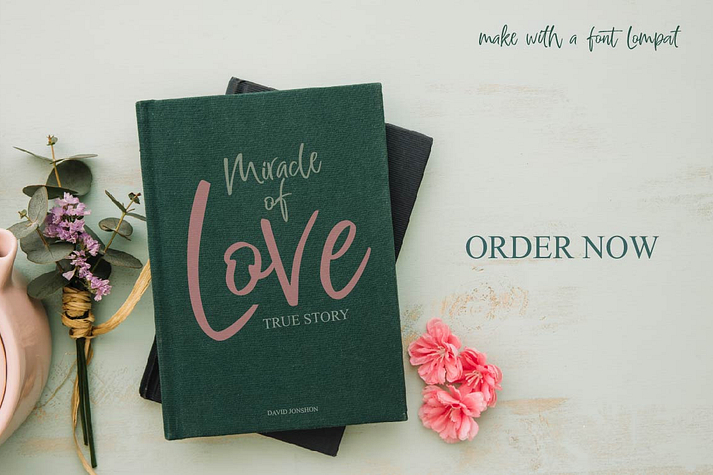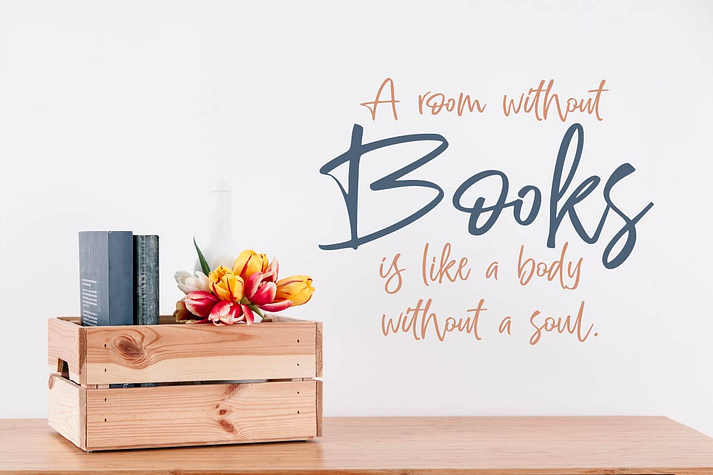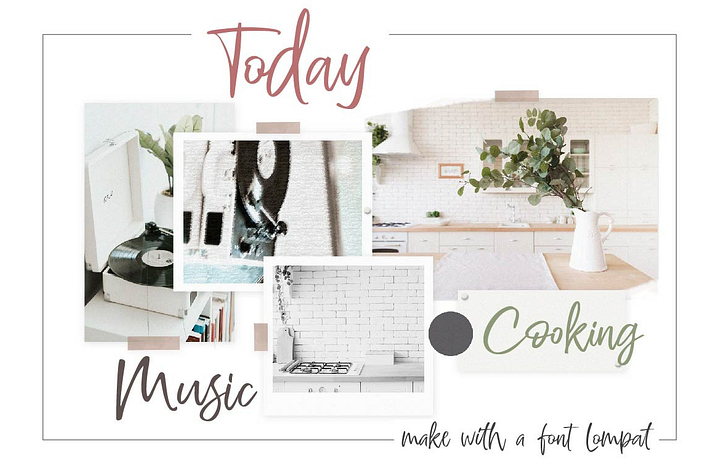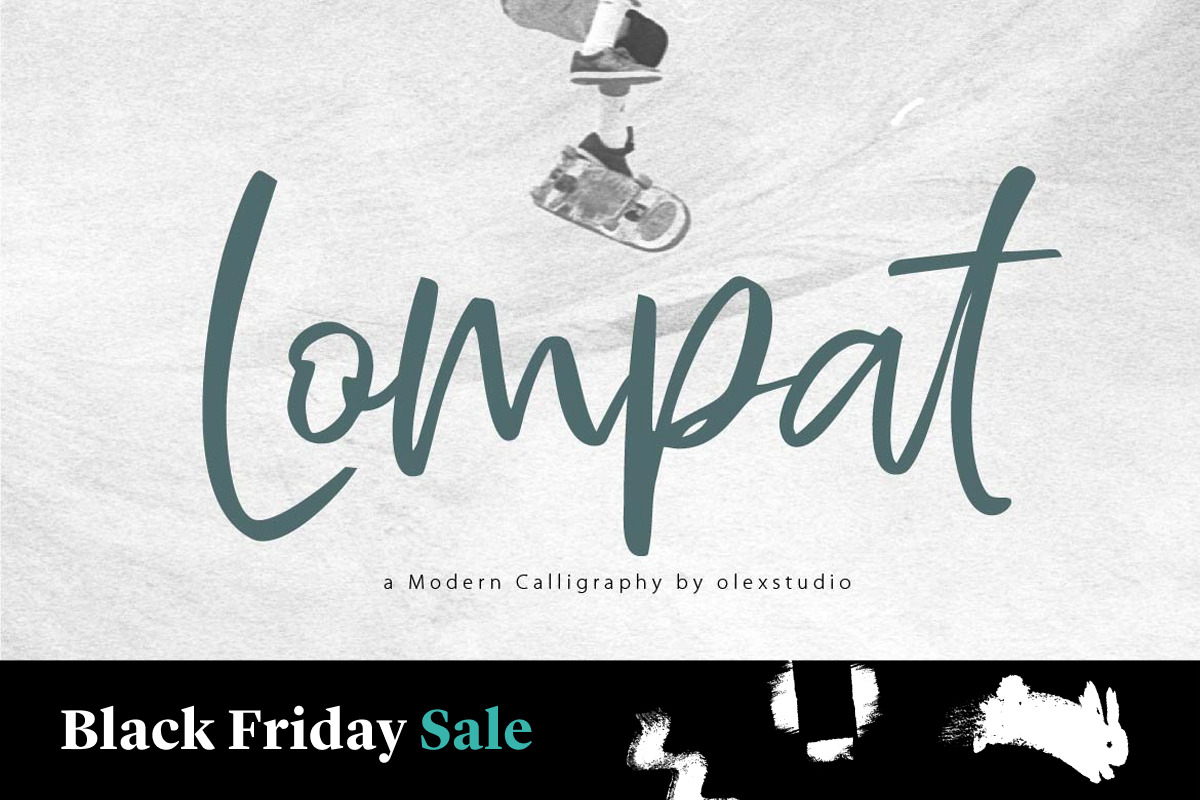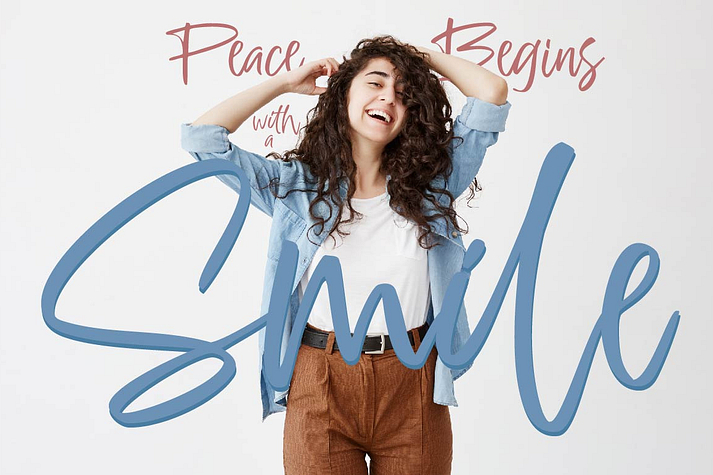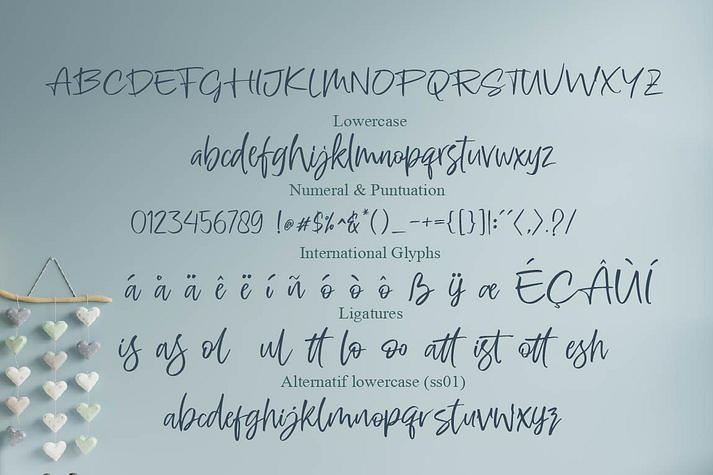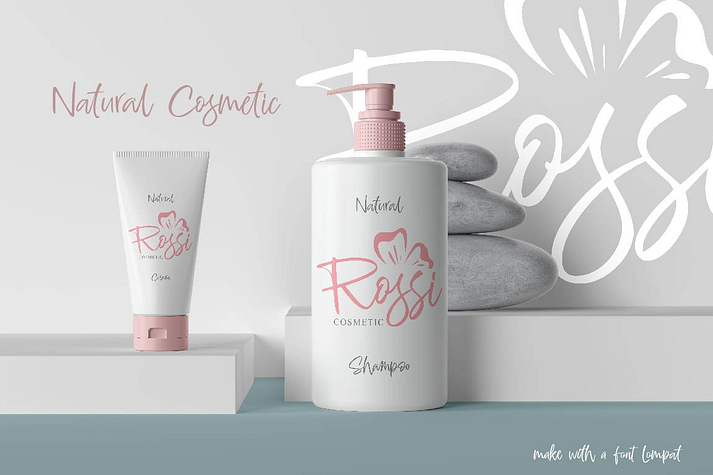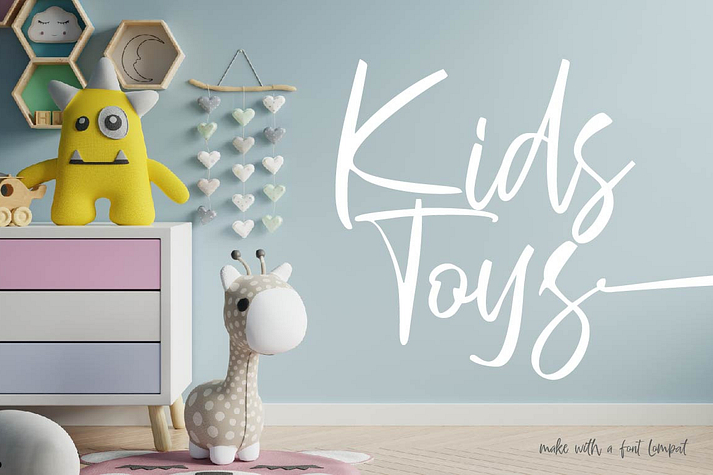
Lompat
Lompat is a font family published by olexstudio.
Lompat - Script Lettered Font will look gorgeous on all your designs, invitation, poster design, book design, branding materials, logo’s, t-shirt and all project design other.
Lompat - Script Lettered contains standard characters, Lowercase, lowercase alternates, Uppercase, numbers, punctuation, ligatures and international glyphs. You will receive OTF, TTF files & WEBFONT.
Foundry olexstudio